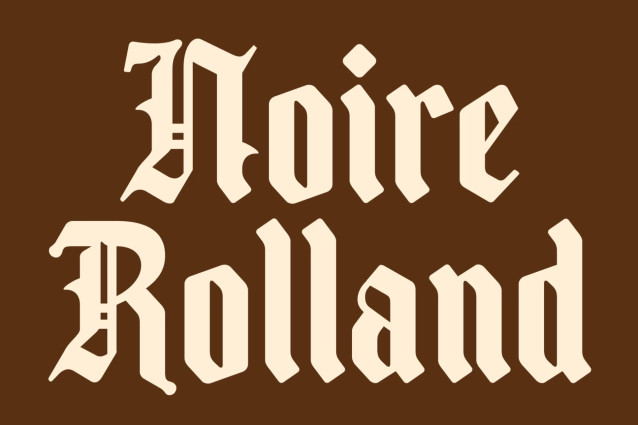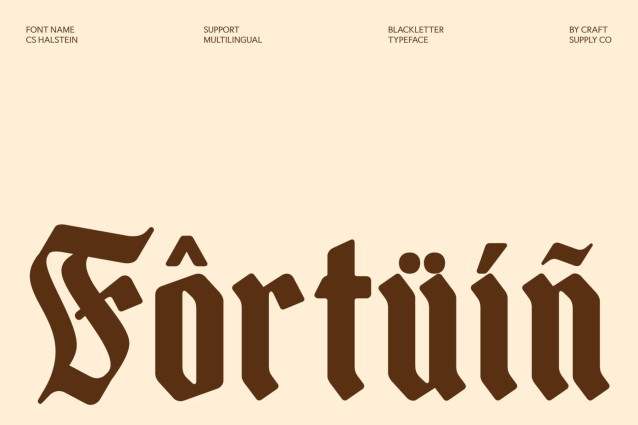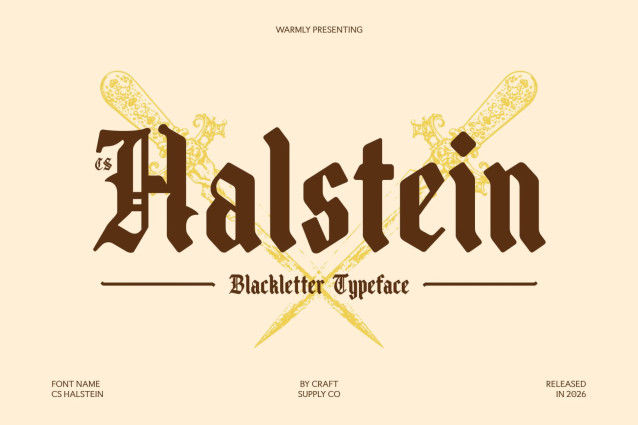
CS Halstein – Blackletter Font
CS Halstein – Decorative Blackletter Display Font with Historic Character
Display Font with Bold Blackletter Style
This font is a display font inspired by the rich tradition of Blackletter typography, designed to bring bold character and dramatic presence into modern design. Featuring decorative letterforms and expressive details, this typeface captures the essence of classic historical aesthetics while delivering a visually striking and contemporary appeal.
Decorative Forms with Historic Influence
The defining feature of this font lies in its intricate Blackletter-inspired shapes and ornamental structure. Sharp edges, flowing strokes, and bold construction create a powerful rhythm that instantly evokes a sense of heritage and craftsmanship. These decorative details give the font a timeless personality that feels both artistic and authoritative.
Expressive Personality with Unique Presence
This font combines historical elegance with expressive visual energy, making it ideal for projects that demand attention and individuality. Its strong character transforms typography into a focal point, adding depth and atmosphere to every composition. The result is a font that feels classic, dramatic, and creatively distinctive.